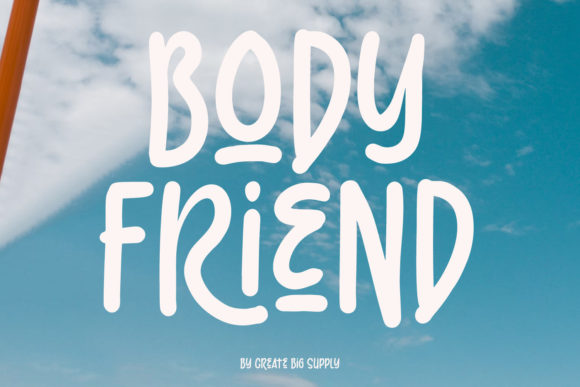
The Ultimate Font for Creative Expression: A Deep Dive into Body Friend Font
I’ll never forget the moment I stumbled upon the perfect font for a project. I was working on a handmade greeting card for a friend’s birthday, and I was determined to make it special. But, as I scrolled through my font library, I just couldn’t find the right fit. That’s when I discovered Body Friend Font – a cool and casual display font that instantly captured the playful, friendly vibe I was going for. In this article, I’ll share my experience with Body Friend Font, its features, and how to make the most of it in various design platforms.
An Honest Review of Body Friend Font
So, what makes Body Friend Font so special? Here are some things I love about it:
- ✨ Unique character: Body Friend Font has a distinct personality that’s both cool and approachable.
- ✅ Versatility: Whether you’re designing for crafts, digital media, presentations, or greeting cards, this font adapts seamlessly.
- 💡 Ease of use: The font is incredibly easy to read, even at smaller sizes.
Of course, no font is perfect, and Body Friend Font has a few minor quirks:
- 🤔 Limited formal applications: Due to its casual nature, Body Friend Font might not be the best fit for formal or professional projects.
- ⚠️ Occasional kerning issues: As with any font, you might encounter some kerning issues, especially when using it at larger sizes.
- Experiment with OpenType features, such as ligatures and stylistic alternates, to add visual interest to your design.
- Explore glyphs and stylistic alternates to add variety to your text.
The Story Behind Body Friend Font
Body Friend Font was designed with the intention of creating a friendly, approachable font for everyday use. The designer aimed to craft a font that would be both fun and legible, making it perfect for a wide range of creative projects. While the exact story behind the font’s creation might be unknown, its versatility and charm have made it a favorite among designers and crafters alike.
| Font Name | Body Friend Font |
| Author | Create Big Supply |
| What is Body Friend Font best suited for? | Body Friend Font is ideal for creative projects, such as crafts, digital design, presentations, and greeting cards. |
| Is Body Friend Font suitable for formal projects? | Due to its casual nature, Body Friend Font might not be the best fit for formal or professional projects. |